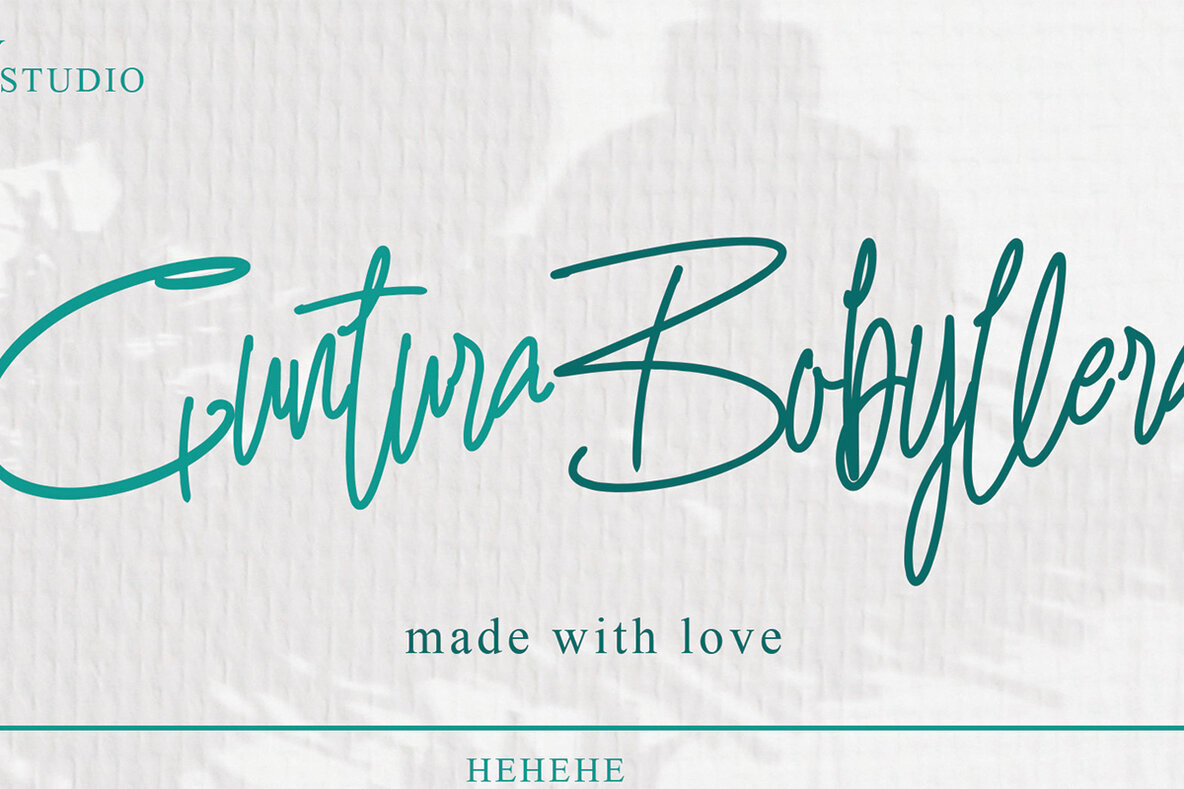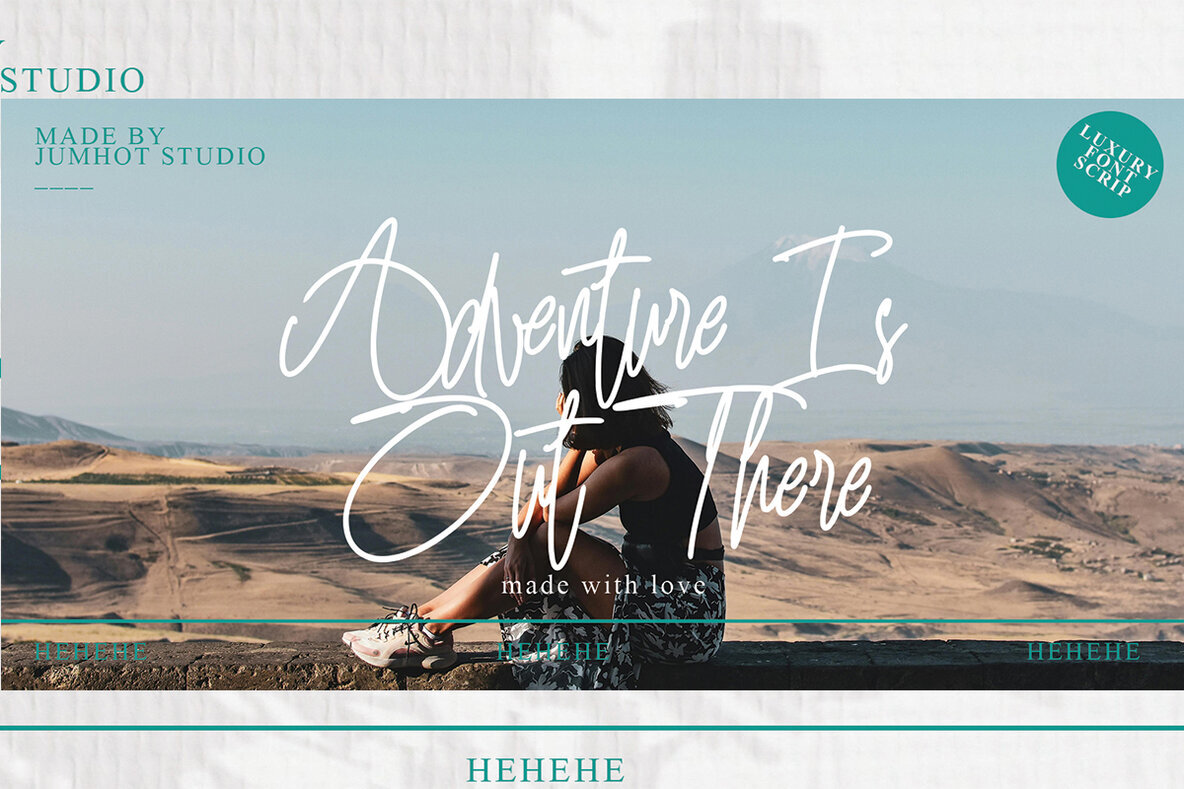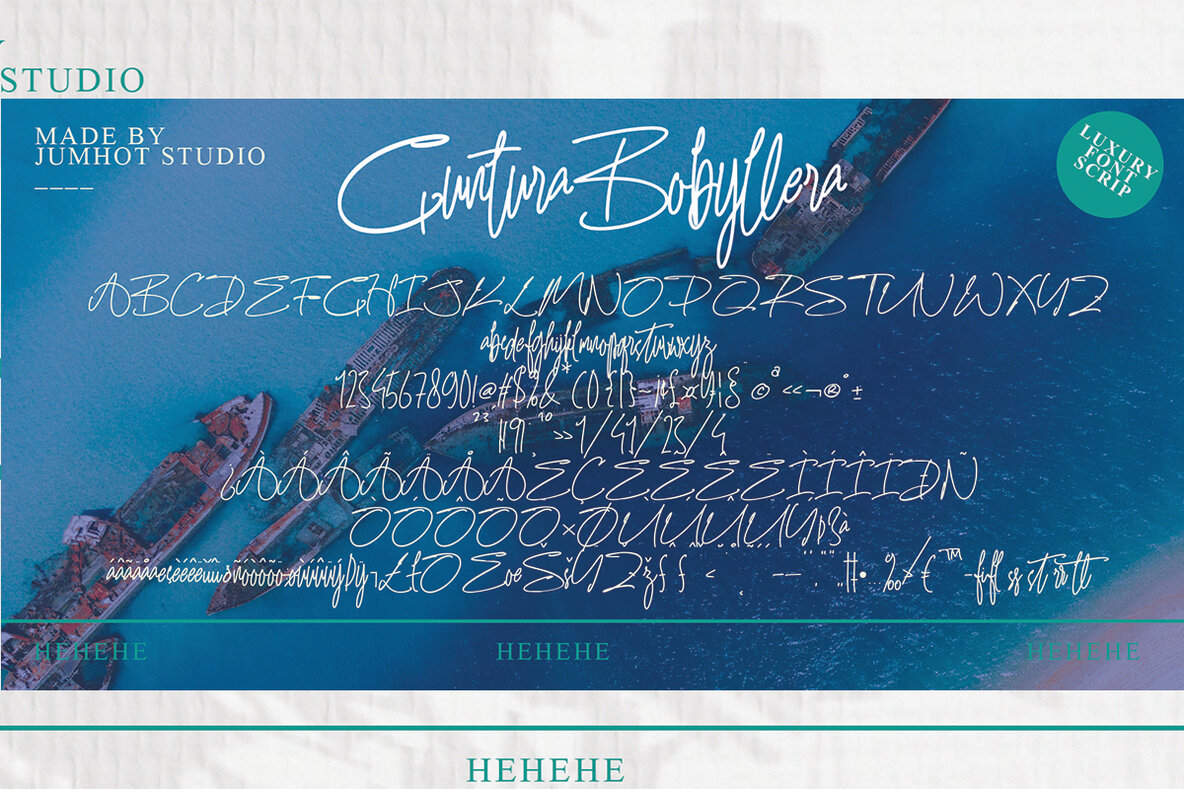
Guntur Bobyllera Font
Guntura Bobyllera
The Guntur Bobyllera font introduces a distinctive style tailored for diverse creative projects. Its unique character and clean lines make it a solid choice for graphic designers seeking visual impact and versatility. Whether used for quotes, logos, blog headers, or posters, this font offers reliable consistency across applications. Its balanced design also suits branding, personal letters, invitations, and stationery. Guntur Bobyllera delivers clarity and personality without overwhelming your composition, making it a practical solution for both digital and print work.Guntur Bobyllera Font